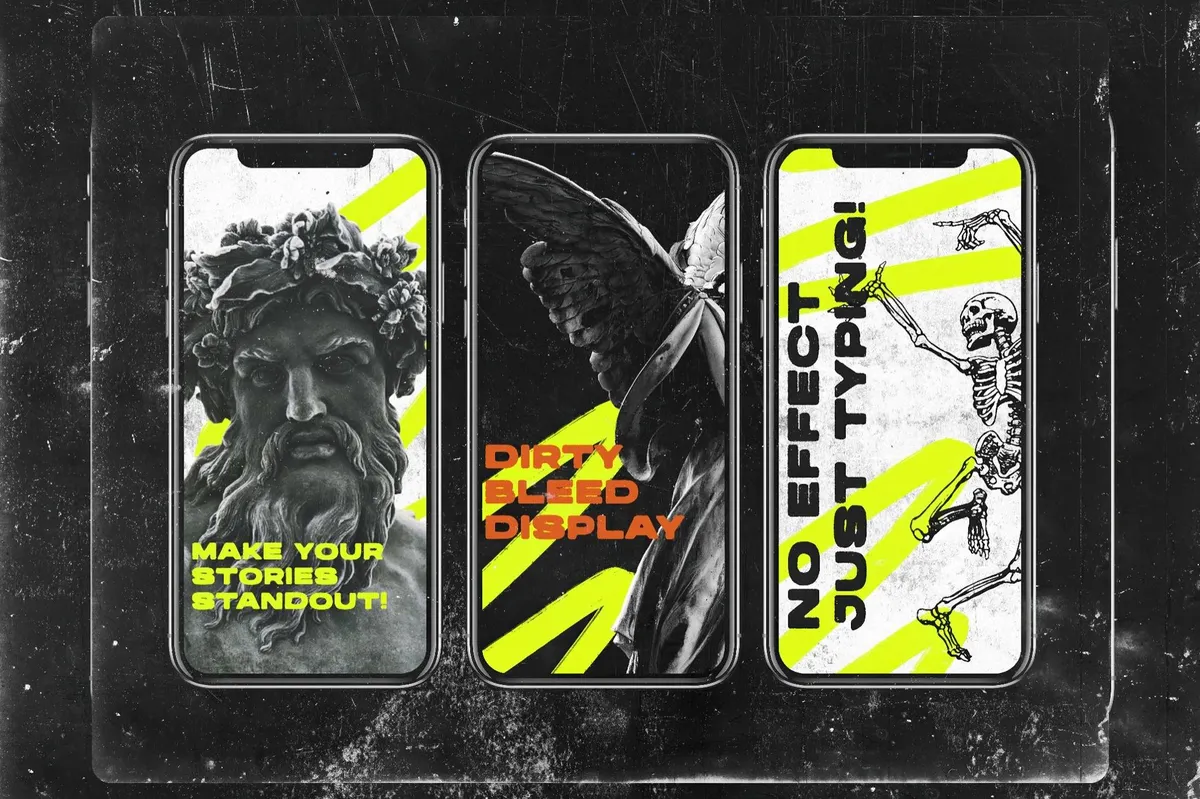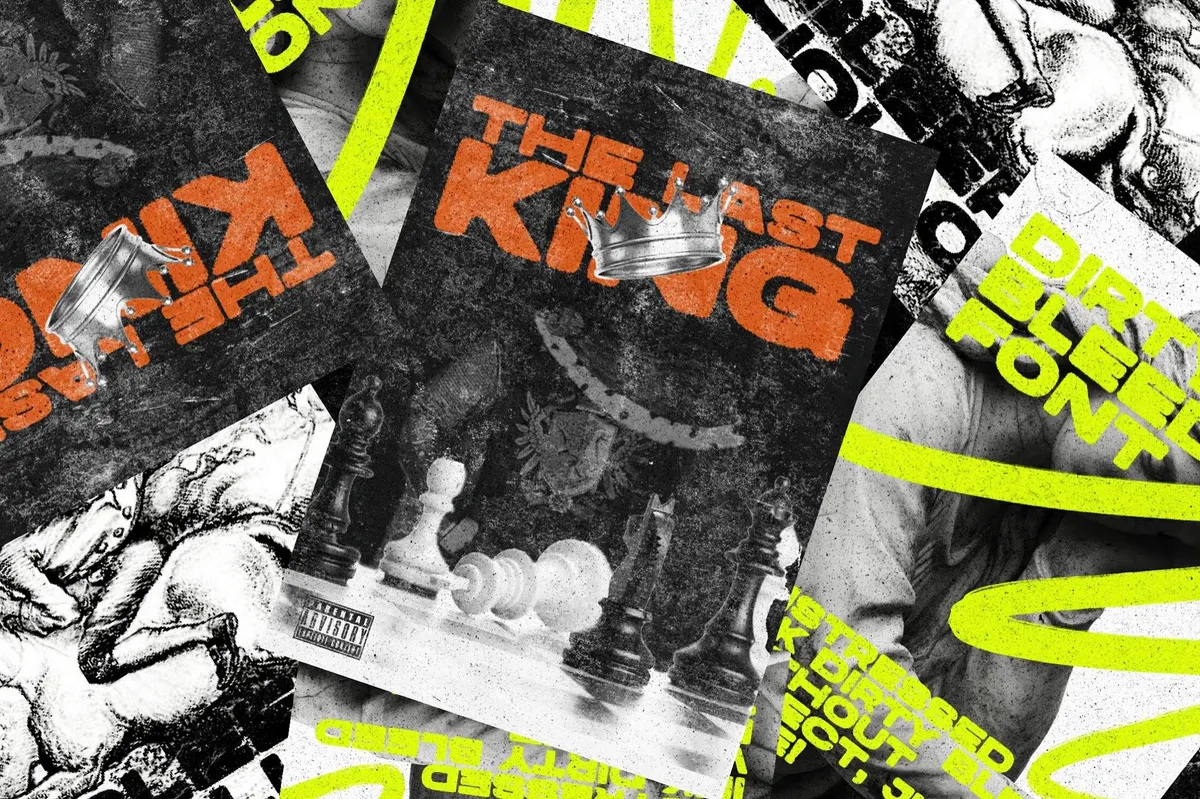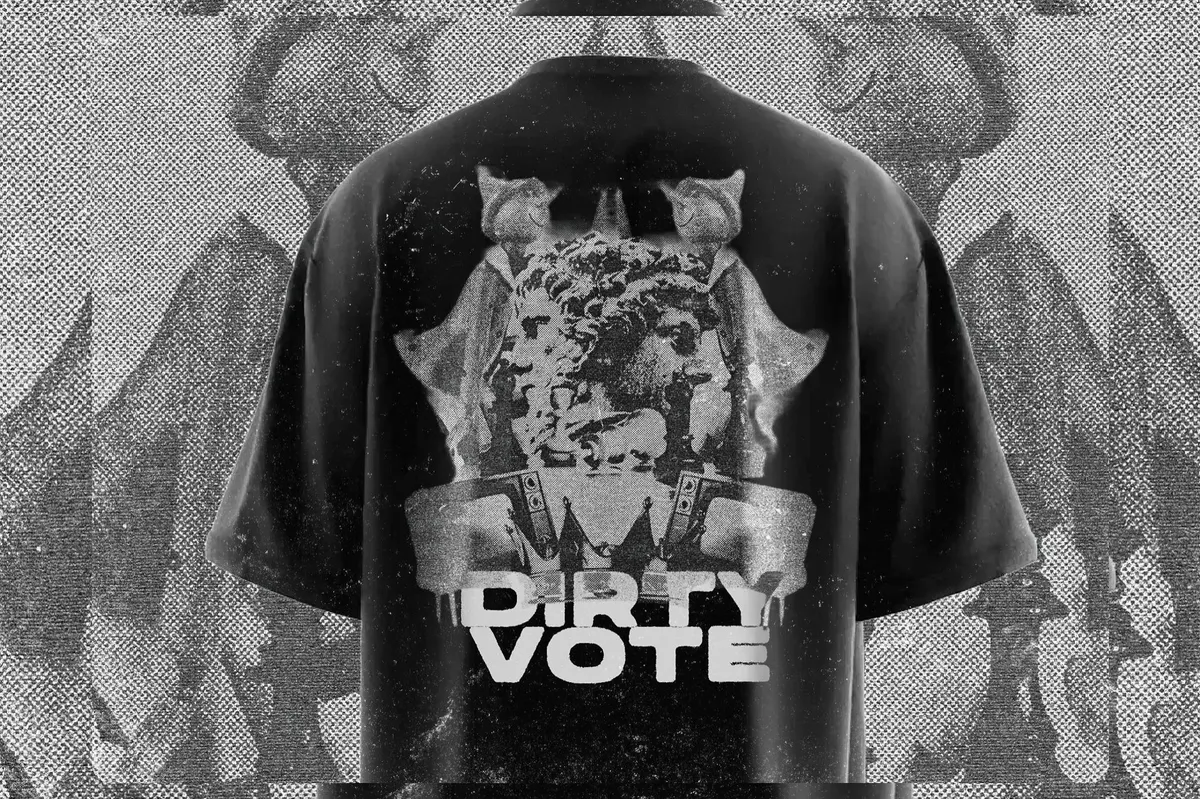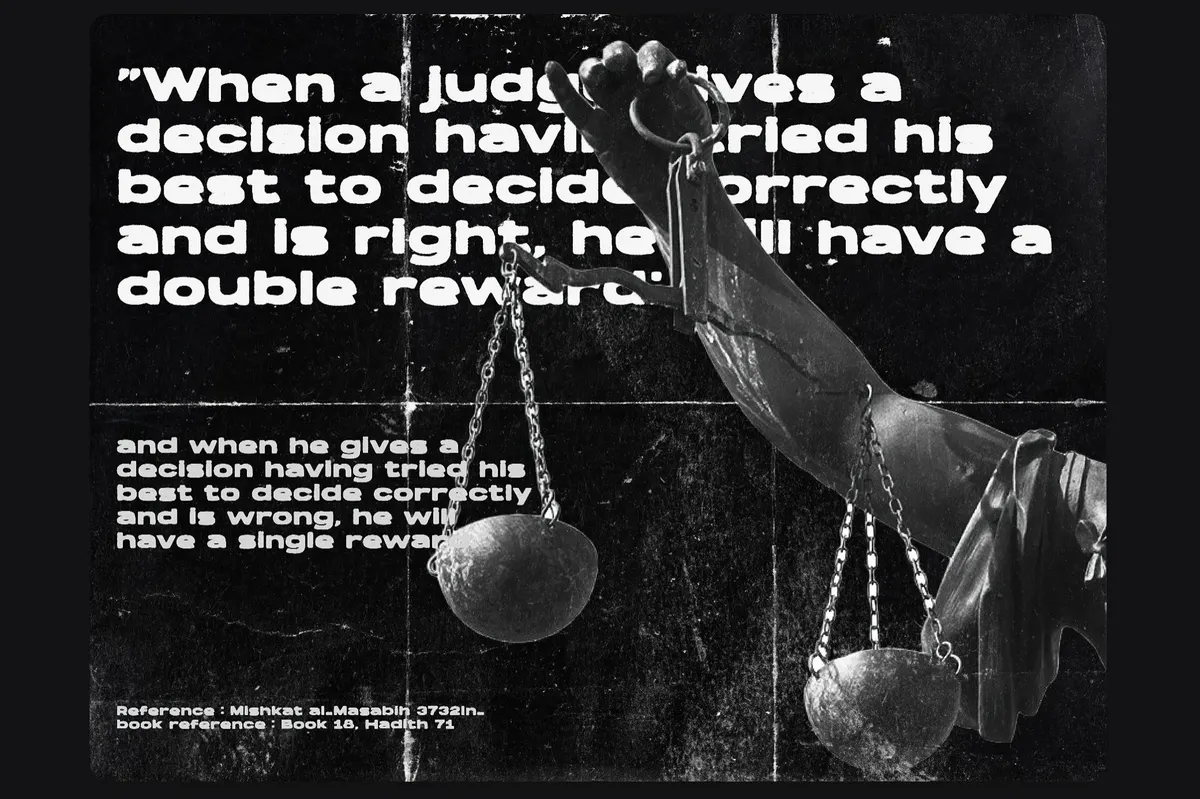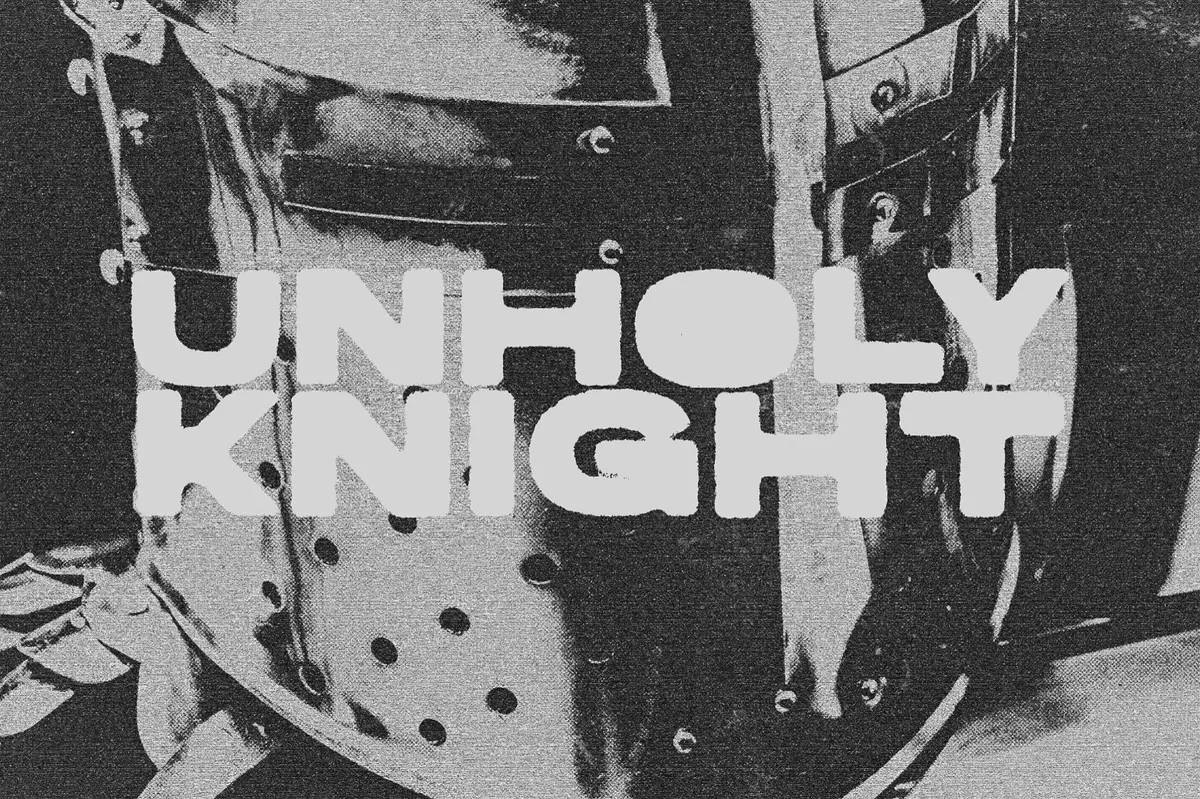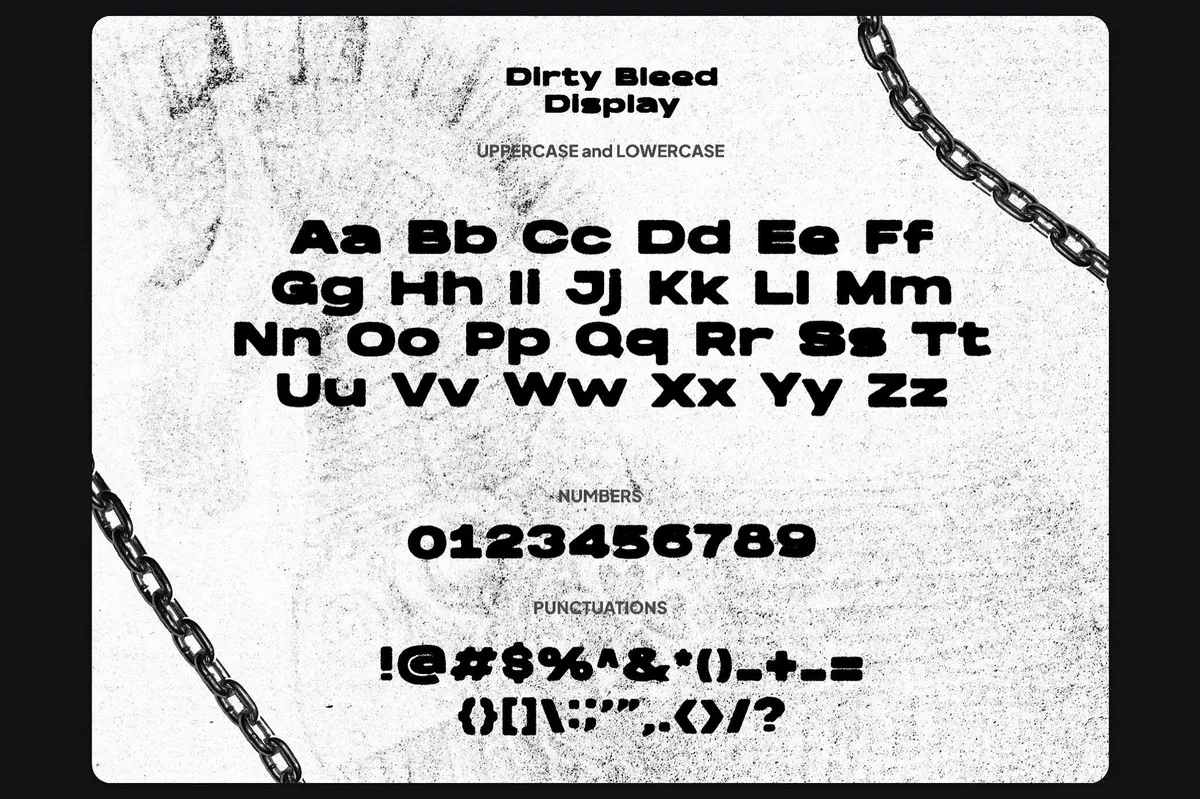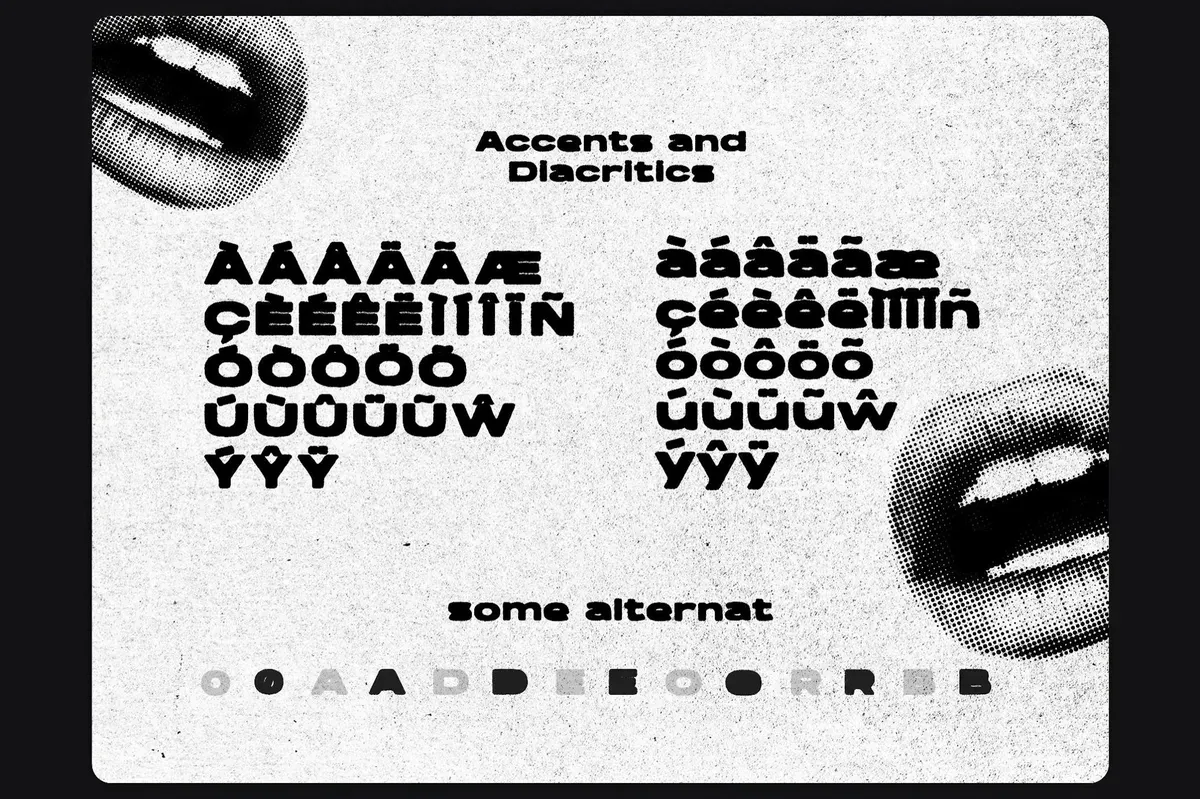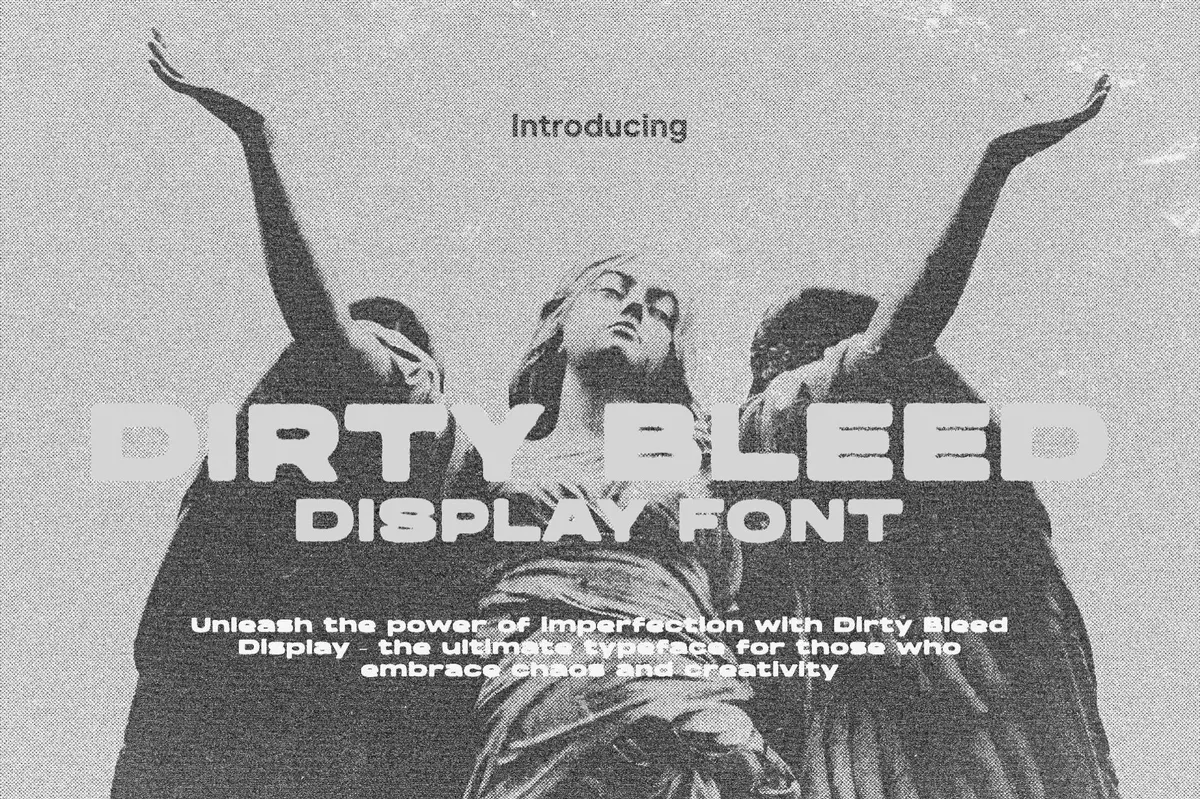
Dirty Bleed Display Font
Forget clean lines and quiet fonts, as Dirty Bleed font comes howling out of the photocopier like a punk zine printed at 3 AM. It’s smudged, brutal, and bleeding over the edges in all the best ways. This typeface isn’t here to behave, oh no! With raw, ink-drunk forms and deliberately messed-up contours, Dirty Bleed makes noise wherever it lands — on anarchist posters, underground album covers, or streetwear labels that couldn’t care less about kerning perfection. Full multilingual support? Yeah, it’s global chaos. Use it when your design needs to look like it just crawled out of a Xerox machine mid-riot.